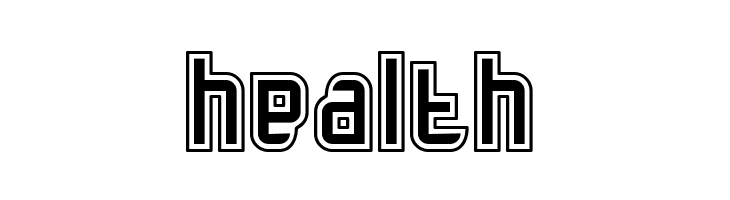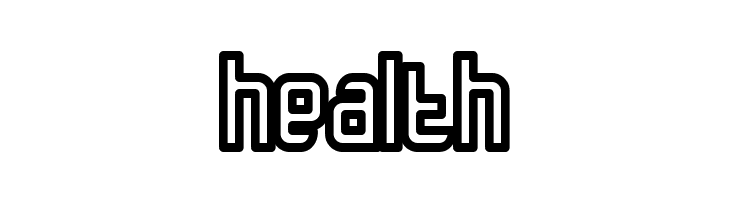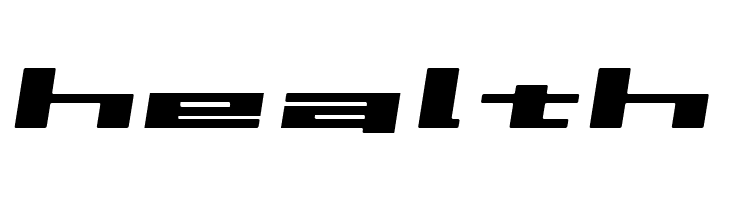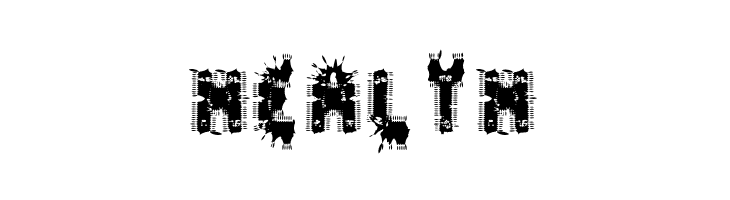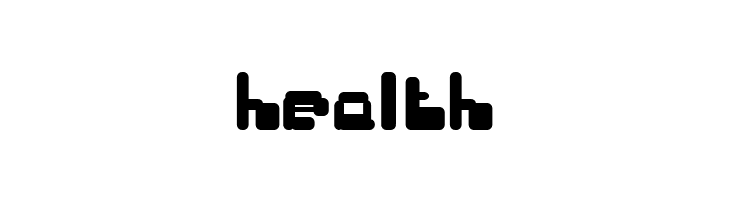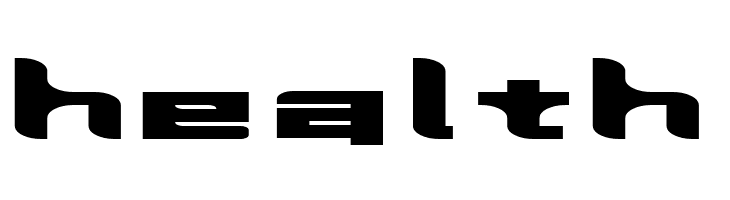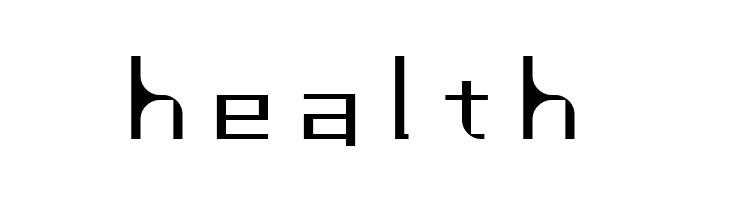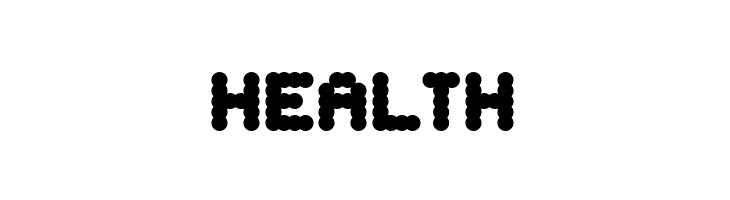
A geometric, modern font with clean lines and a technical appearance.
A bold, geometric font with a double-line outline for a modern, futuristic look.
A bold, geometric outline font with a modern, three-dimensional appearance.
A bold, futuristic font with angular, geometric shapes and a modern aesthetic.
A bold, explosive display font with a splattered, chaotic design.
A bold, geometric font with a modern, digital aesthetic.
A bold, geometric font with a futuristic and edgy design.
A modern, geometric font with sharp angles and a futuristic feel.
A bold, abstract font with fragmented, geometric letterforms.
A playful, bubble-like font with rounded, dot-formed characters.